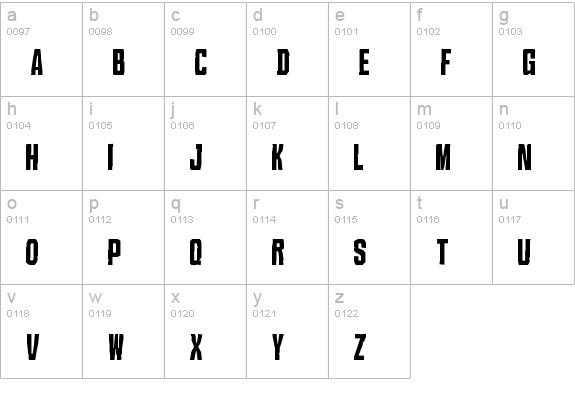
Croteau-Regular is the standard, neutral variant in the Croteau typeface family \xE2\x80\x94 well suited to general body text, paragraphs, and standard typographic work.
Croteau-Regular is a modern and stylish font that exudes elegance and sophistication. With its clean lines and balanced proportions, this typeface is perfect for a wide range of design projects. Whether you are creating a logo, branding materials, or a website, Croteau-Regular will add a touch of class to your work. The best part? Croteau-Regular is completely free to download at FontsMarket.com. This means you can access this beautiful font without any cost, making it a valuable addition to your design toolkit. Don't miss out on the opportunity to elevate your projects with Croteau-Regular - download it today and start creating stunning designs effortlessly.